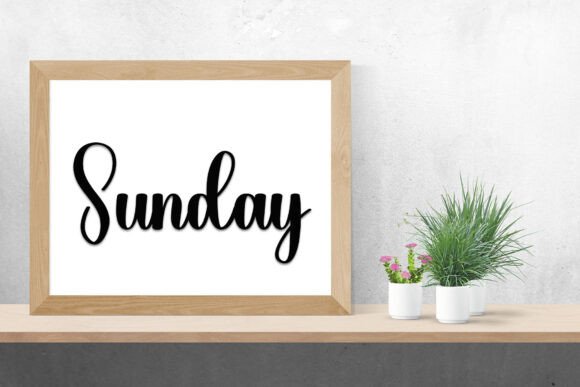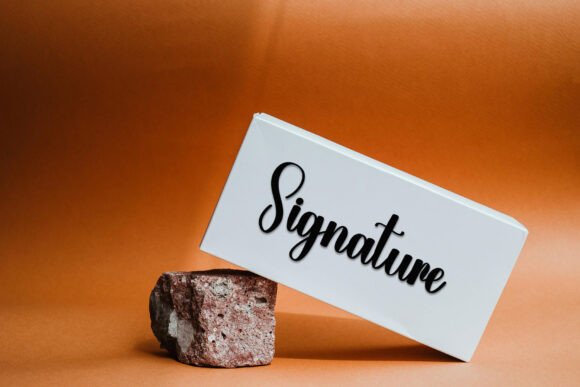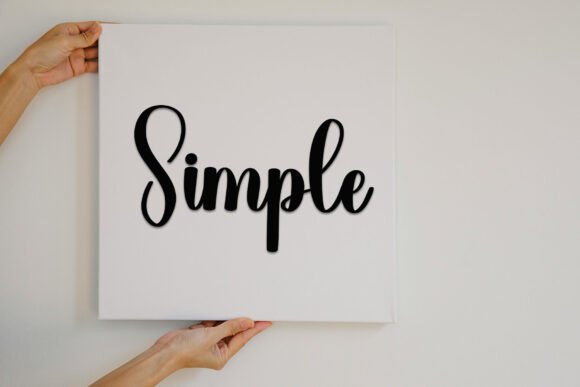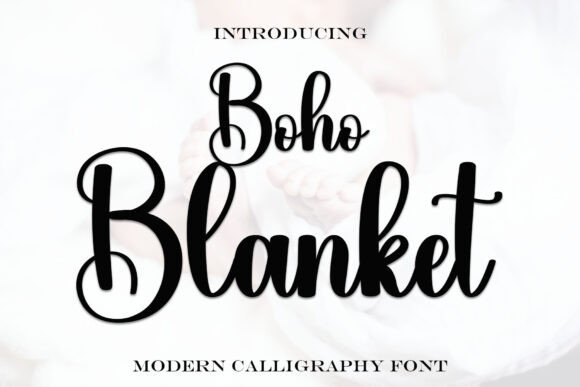
Introduction to Boho Blanket Font
Boho Blanket is a sweet and cursive handwritten font.
This gentle font will look gorgeous on a variety of design ideas It will add a joyful and romantic touch to each of your projects.
Boho Blanket Font offers exceptional quality and versatility, making it a valuable addition to your design toolkit. Whether you’re creating for personal projects or commercial use, Boho Blanket Font delivers professional results.